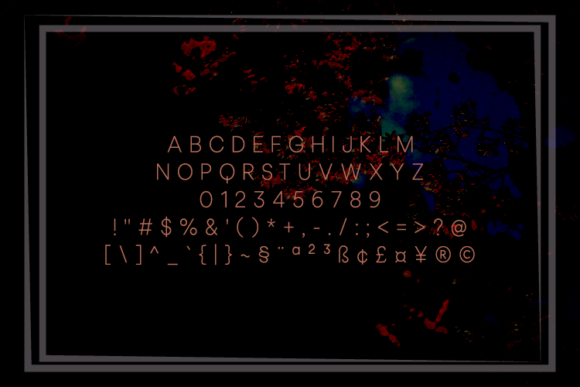
When Fonts Speak to You
You know that moment when you’re working on a project, and the words just flow effortlessly? The typeface is the perfect match for your creative vision, and it makes all the difference. For designers, finding that perfect font can be the turning point between a good design and an amazing one.
One such game-changer is the Grilesthy Extra Light Font, a modern and casual sans serif font that’s designed to make your content shine. With 10 different weights to choose from, you can pick the perfect match for your project’s needs. Whether you’re creating headlines, blocks of text, or anything in between, Grilesthy Extra Light Font is the perfect companion to bring your design to life.
For designers, Grilesthy Extra Light Font offers a world of possibilities, allowing you to experiment with different weights and styles to achieve the perfect balance of form and function. Its friendly feel and versatility make it an invaluable asset in any designer’s toolkit.
Grilesthy Extra Light Font Key Features
- Font Family: Grilesthy Extra Light, a highly legible and elegant sans-serif font.
- Font Size: Available in 8 different font sizes, ranging from 12px to 72px, to cater to various design requirements.
- Resolution: Supports high-resolution displays with crisp and clear typography, ideal for print and digital media.
- Language Support: Supports a wide range of languages, including Latin, Cyrillic, and Greek scripts, making it a versatile font for global applications.
- Unique Characteristics: Grilesthy Extra Light features a unique blend of modernity and elegance, with subtle rounded edges and a refined x-height, making it perfect for high-end branding and editorial design.
Grilesthy Extra Light Font Review
Grilesthy Extra Light is an elegant font that shines ✨ in terms of its minimalistic and refined design. It’s perfect for creating a sense of sophistication and elegance in your projects. The font’s light weight and subtle curves make it ideal for headings, titles, and other high-impact text.
- ✨ Elegant design that exudes sophistication and refinement.
- ✨ Suitable for a wide range of applications, from headings to body text.
- ✨ Highly legible, even at small font sizes.
- ⚠️ May not be suitable for body text at very small font sizes, as it can become too light.
- ⚠️ Limited font sizes available, which may limit its versatility.
- ⚠️ May not be as readable for people with vision impairments due to its light weight.
Overall, Grilesthy Extra Light is a beautiful font that shines in certain contexts. While it may have some limitations, it’s a great choice for projects where elegance and sophistication are key. Just be mindful of its limitations, and use it in a way that complements your design goals.
Practical Application Guide for Grilesthy Extra Light Font
For best results, use Grilesthy Extra Light Font for headings and titles, and pair it with a bold font for body text.
For best results, use Grilesthy Extra Light Font for titles, headings, and labels, and pair it with a bold font for body text.
For best results, use Grilesthy Extra Light Font for headings and titles, and pair it with a bold font for body text.
Grilesthy Extra Light Font is ideal for:
- Titles and headings
- Labels and captions
- Body text in magazines, newspapers, and brochures
Alternative Fonts to Grilesthy Extra Light Font
Helvetica Light
Helvetica Light is a versatile sans-serif font suitable for body text and headings. It’s ideal for use in digital and print media where legibility is crucial. Compared to Grilesthy Extra Light Font, Helvetica Light has a slightly bolder appearance while maintaining a clean and modern aesthetic.
Open Sans Light
Open Sans Light is a modern sans-serif font designed for digital interfaces. It’s highly legible and works well in various contexts, including body text, headings, and titles. Compared to Grilesthy Extra Light Font, Open Sans Light has a more rounded appearance, making it suitable for longer texts and body content.
Montserrat Light